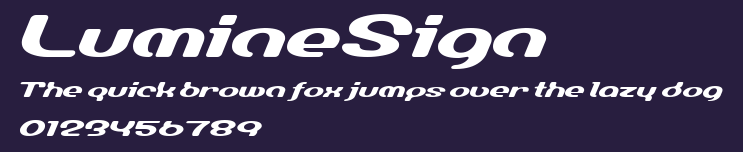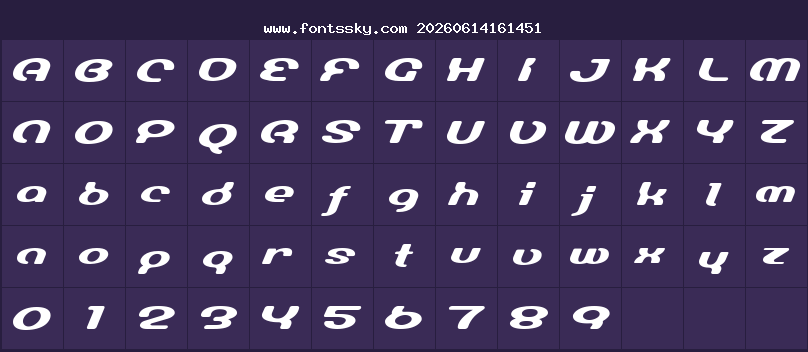
• Font Name: LumineSign
• Full Font Name: LumineSign Bold
About LumineSign.ttf
LumineSign.ttf is a modern, elegant sans-serif font designed for ultimate readability and visual harmony. Perfect for branding, headlines, web design, and print materials.